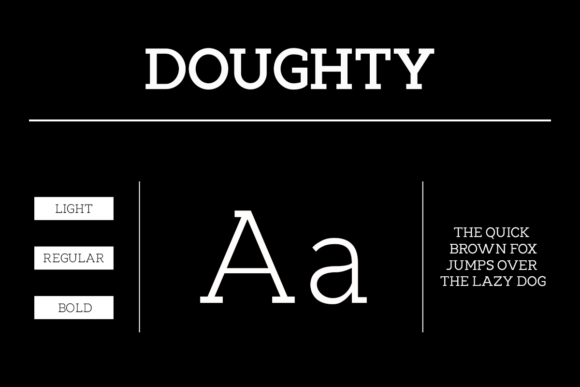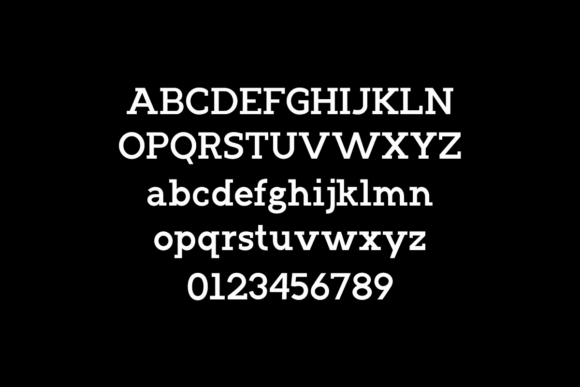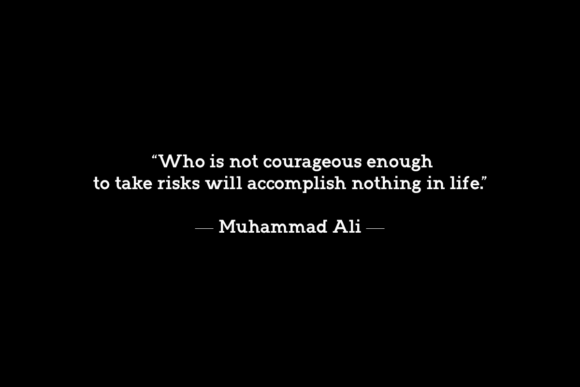
Doughty Font: Elevate Your Designs with a Minimal and Clean Slab Serif
In the world of typography, a font can make or break a design. It’s the foundation upon which the entire visual identity is built. For designers and crafters, finding the perfect font can be a daunting task. However, if you’re looking for a typeface that exudes simplicity, elegance, and versatility, look no further than the Doughty Font. This minimal and clean slab serif font is poised to become your go-to choice for a wide range of projects.
What is Doughty Font?
Doughty is a thoughtfully crafted slab serif font that boasts a clean and minimal aesthetic. Its design is characterized by sturdy, rectangular serifs and a clear, legible letterform. This font is meticulously designed to ensure that it remains crisp and sharp, even at smaller sizes, making it perfect for both digital and print applications.
Key Features of Doughty Font
- Minimal and Clean Design: Doughty’s design philosophy revolves around simplicity. It features clean lines, subtle curves, and a minimalist approach to typography, making it an excellent choice for modern designs.
- Slab Serif Typeface: The slab serif style of Doughty adds a touch of sophistication and elegance to any project. The serifs provide a solid foundation, making the text highly readable.
- Versatility: One of the standout features of Doughty is its versatility. It can be used across a vast array of projects, from branding and advertising to web design and personal crafts.
- Legibility: Doughty’s clear and legible letterforms ensure that your message is conveyed effectively, whether it’s used for headings, body text, or captions.
Use Cases for Doughty Font
The adaptability of Doughty makes it suitable for numerous applications. Here are some scenarios where Doughty can elevate your designs:
- Branding and Logo Design: Create a lasting impression with Doughty. Its clean and professional look makes it ideal for logos, business cards, and brand guidelines.
- Web Design: Enhance your website’s typography with Doughty. Its legibility on digital screens makes it perfect for headings, paragraphs, and UI elements.
- Print Design: From brochures and posters to flyers and magazines, Doughty brings a touch of elegance and sophistication to any print project.
- Crafting and DIY Projects: For crafters, Doughty can be used in a variety of DIY projects such as handmade cards, scrapbooking, and craft blog posts.
Why Choose Doughty Font?
In a sea of fonts, Doughty stands out for several reasons:
- Unique yet Versatile: While Doughty has a distinctive look, it’s versatile enough to fit into various design contexts.
- Easy to Read: The font’s design prioritizes readability, ensuring your audience can easily consume your content.
- Highly Adaptable: Whether you’re working on digital projects or print materials, Doughty adapts seamlessly.
| Font Name | Doughty Font |
| Author | Human Design |
Doughty Font is more than just a typeface; it’s a design solution that can elevate your projects to new heights. Its minimal and clean slab serif design offers the perfect blend of modernity and elegance. Whether you’re a professional designer or a crafting enthusiast, Doughty provides the tools you need to create visually stunning and effective designs. So, add Doughty to your creative arsenal and discover how it can make your projects stand out in a crowded design landscape.